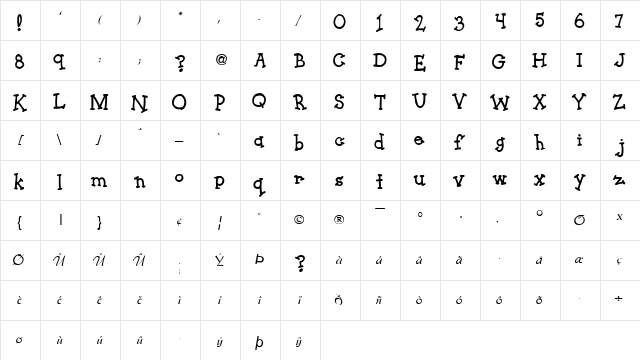
Kids4Fun Regular
Design Context for Kids4Fun Typeface
Kids4Fun has an approachable, lighthearted character — its loose, expressive forms are well-suited to children's content, casual branding, and fun-first design.
Font Pairing: Pairs well with a rounded or humanist sans for body copy, maintaining the friendly tone without relying on Kids4Fun to carry extended reading.
Pro Tip: Use Kids4Fun at larger display sizes where its expressive character can land. Pair with a clean, simple sans for body copy to maintain readability.